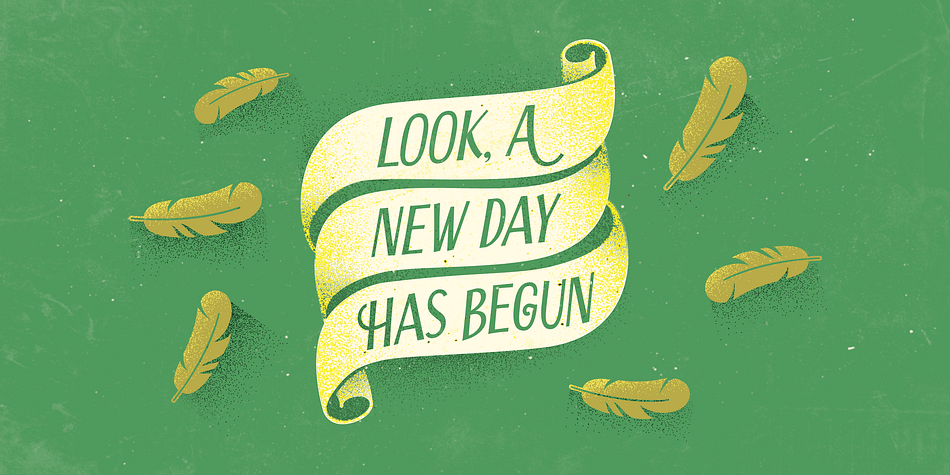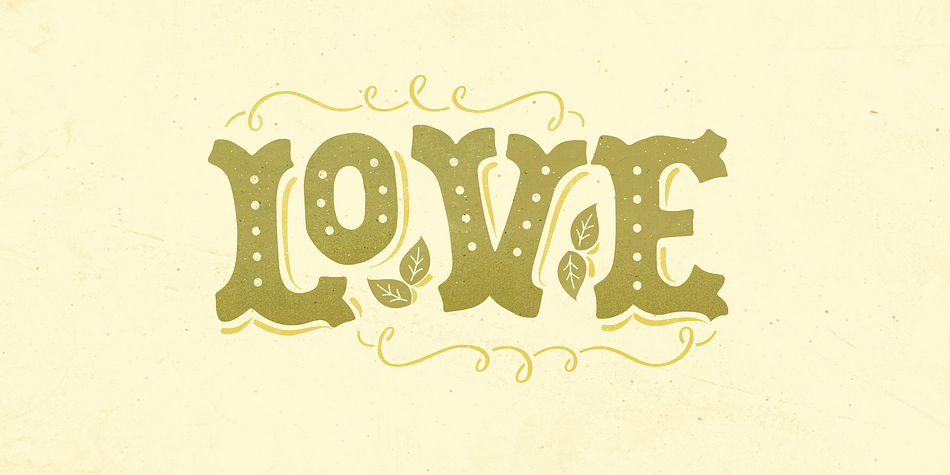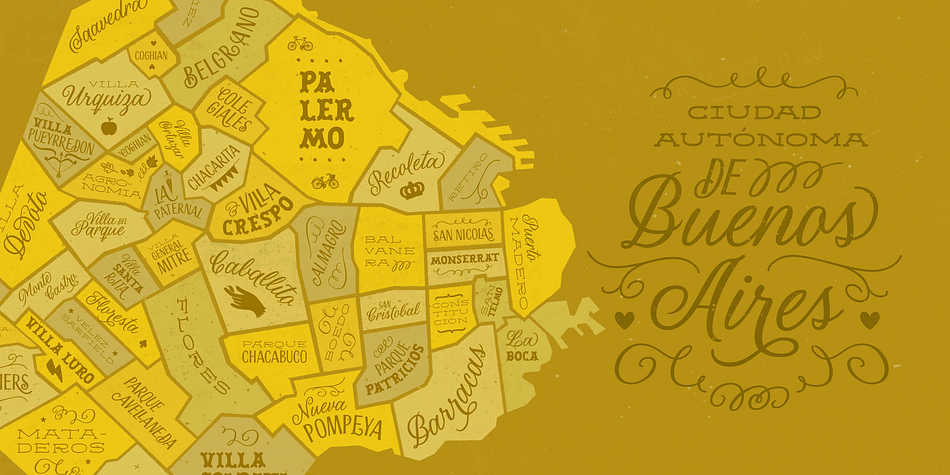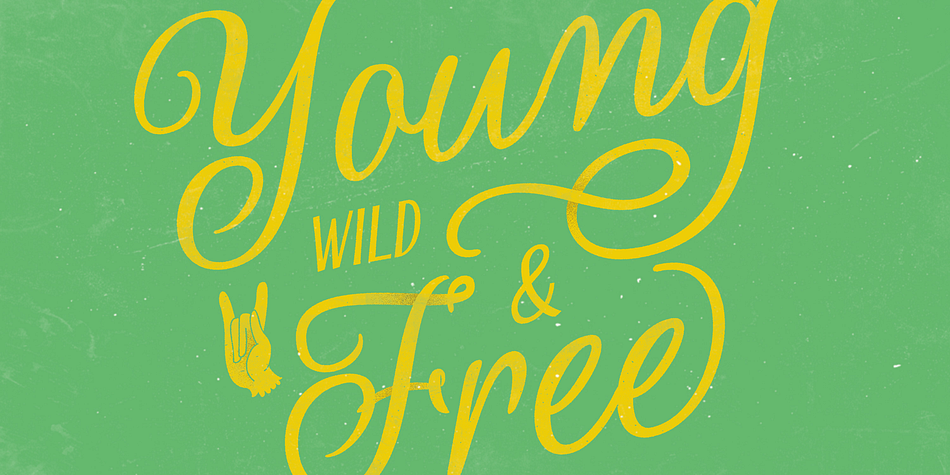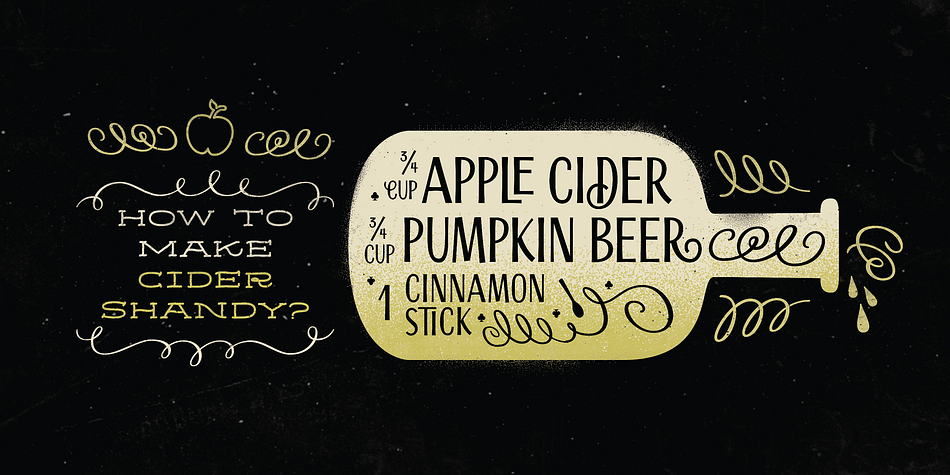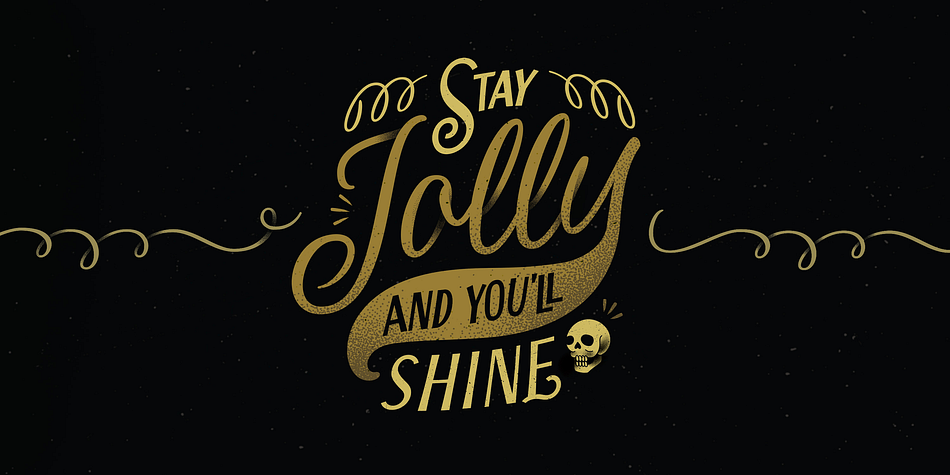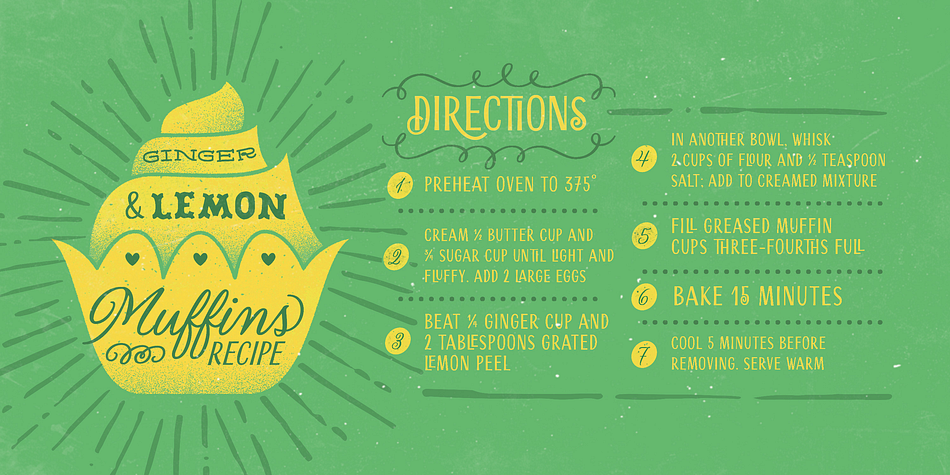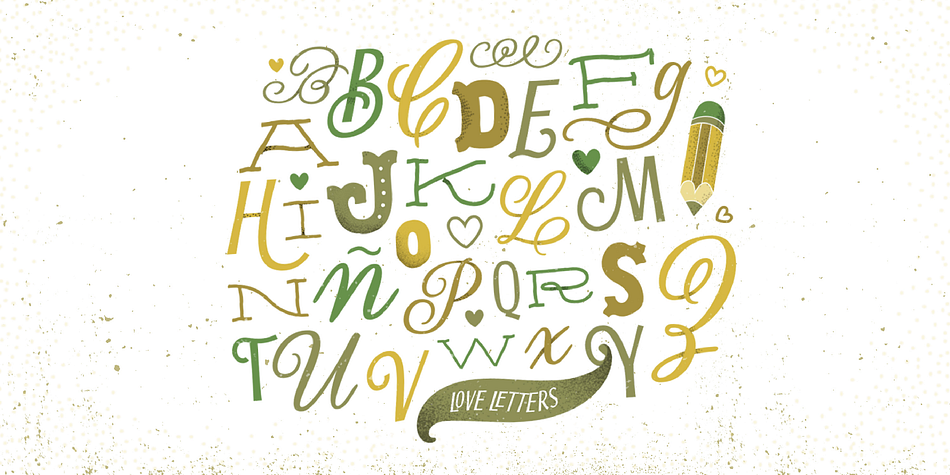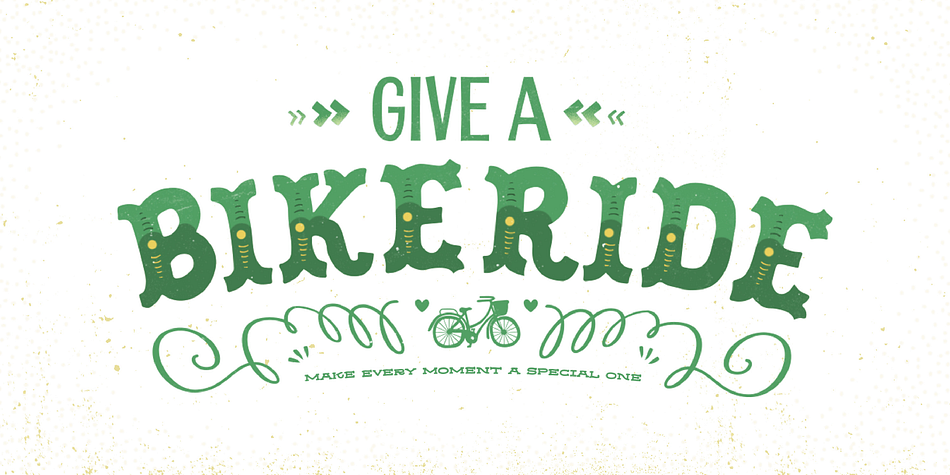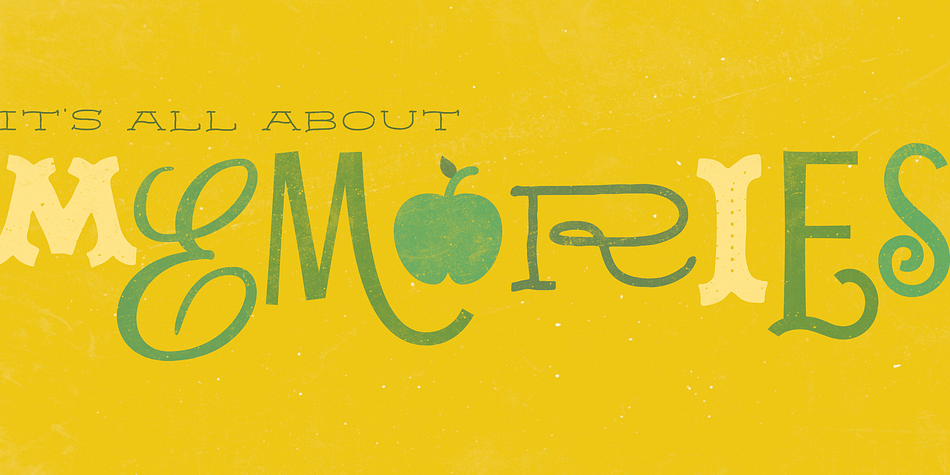
Designed by Carolina Marando and Alejandro Paul, Scrapbooker is a multiple classification font family. This typeface has six styles and was published by Sudtipos.
After previously collaborating on the bestselling Distillery Set, Carolina Marando and Alejandro got together once again to create this Scrapbooker Set, a new series of fonts that multiply the possibilities.
One reason scrapbookers became a kind of design demographic is the appeal of what they do. They make albums of memories, diaries composed of different elements that converge together to lead the viewer to a special moment in time. A paper, a photo, a letter, an event ticket, or a dry petal — everything ends up being part of a collage that tells a story.
Words have a key role in such a collage. They use different shapes and forms and combinations to state what cannot otherwise be expressed. They make the collage stronger by clarifying a concept, defining an image, and solidifying a memory. These words for memory albums are the reason for this Scrapbooker Set, six different fonts with different impressions and different personalities — so each part of the memory can have its own identity. People tell you to write your own history. Now you can do that in style.